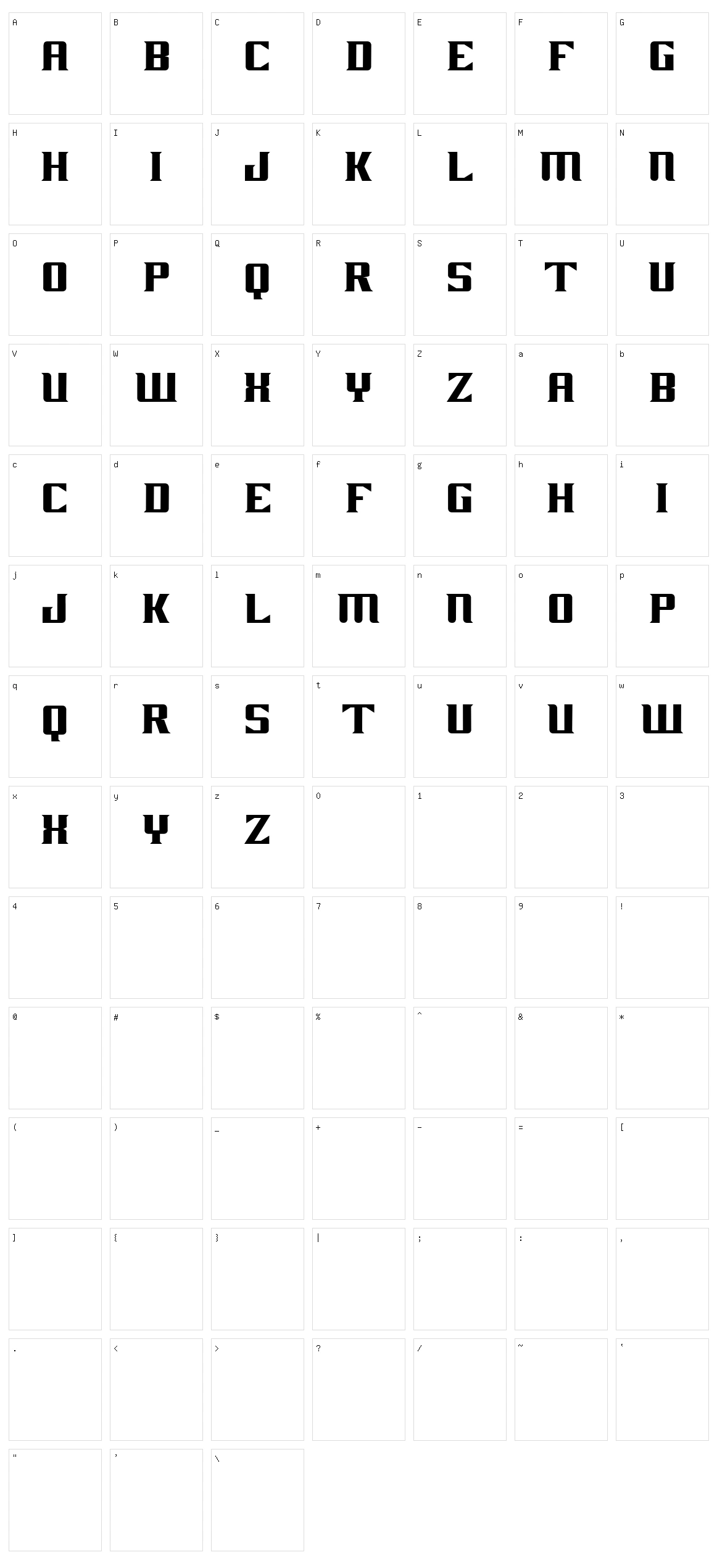
Ghost Rider Movie
Designed by: Alphabet&Type?
x GHOST RIDER FONT x
x FontCOMICS COLLECTION x
Font name: GHOST RIDER Font (FontCOMICS Collection) - Latin Decorative font (versione 1.0)
Type designer: P. A. Vannucci
GHOST RIDER font: direttamente dal film diretto da MARK STEVEN JOHNSON e interpretato da NICOLAS CAGE, il font inedito per tutti
gli estimatori del film. Da notare il ritocco necessario in Photoshop per conferire, alla titolazione, l'originale bordatura.
GHOST RIDER font: directly from the Best movie by MARK STEVEN JOHNSON, with NICOLAS CAGE,
the original font for all lovers. Use ADOBE Photoshop for the original border from title.